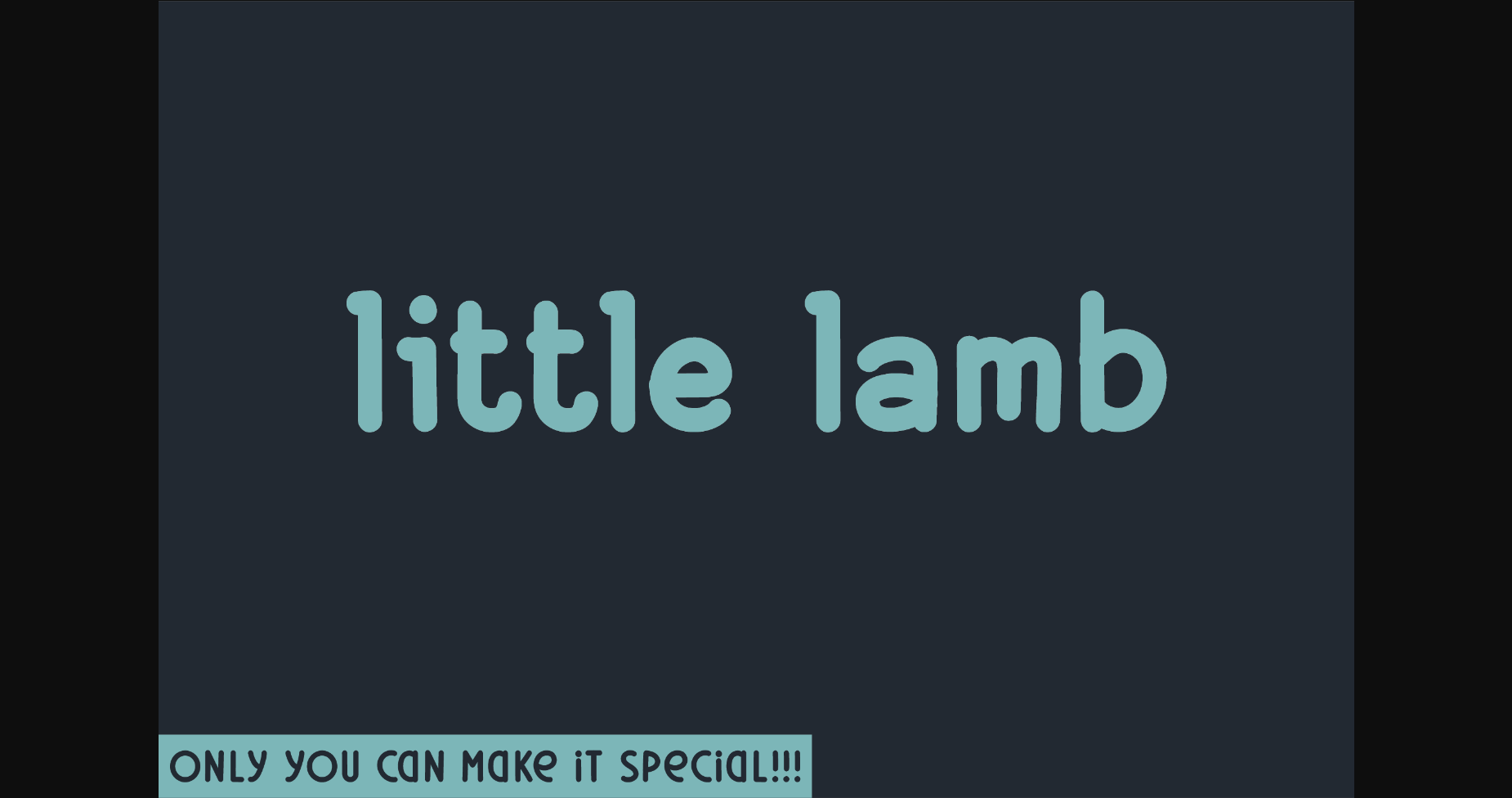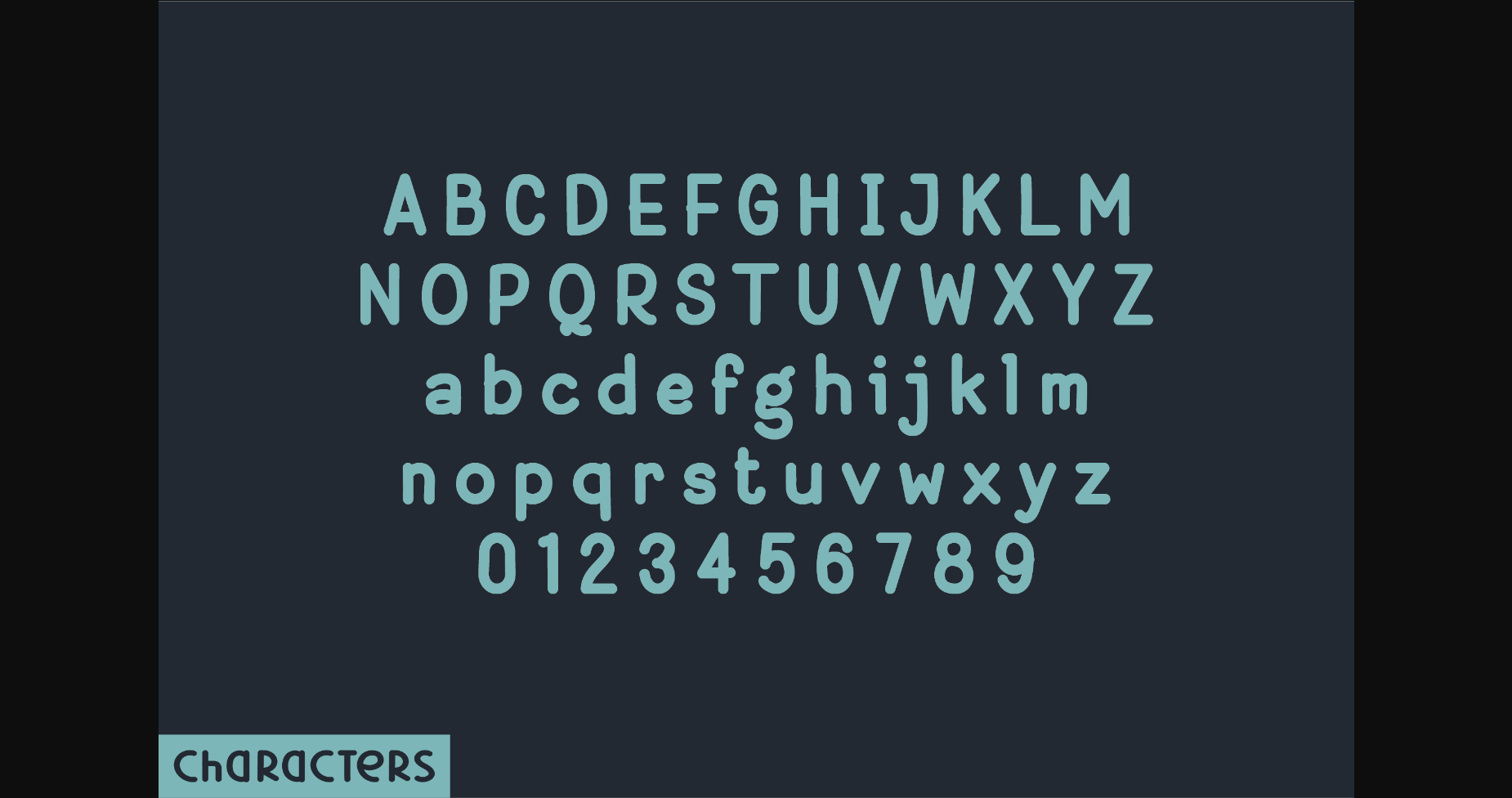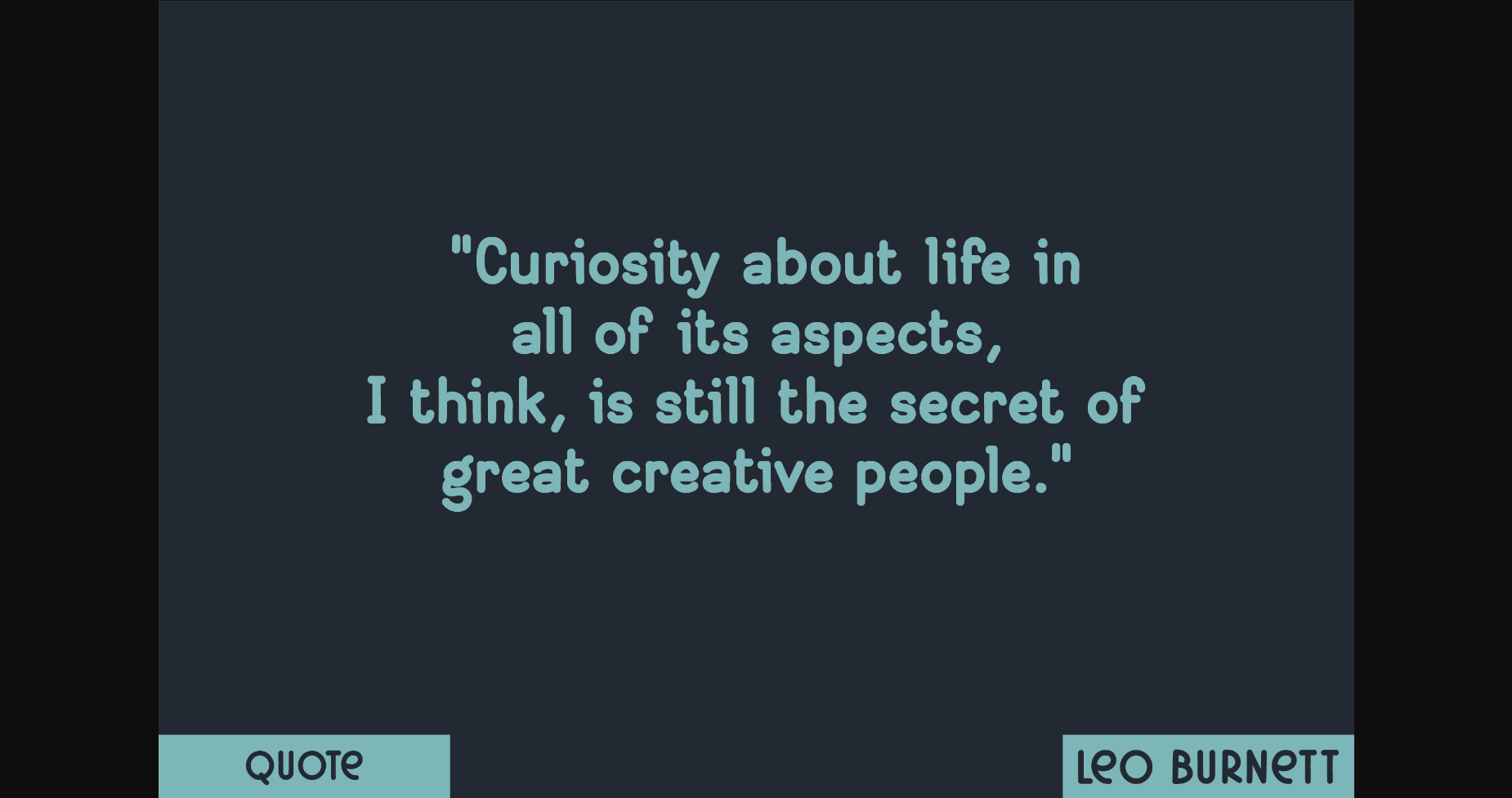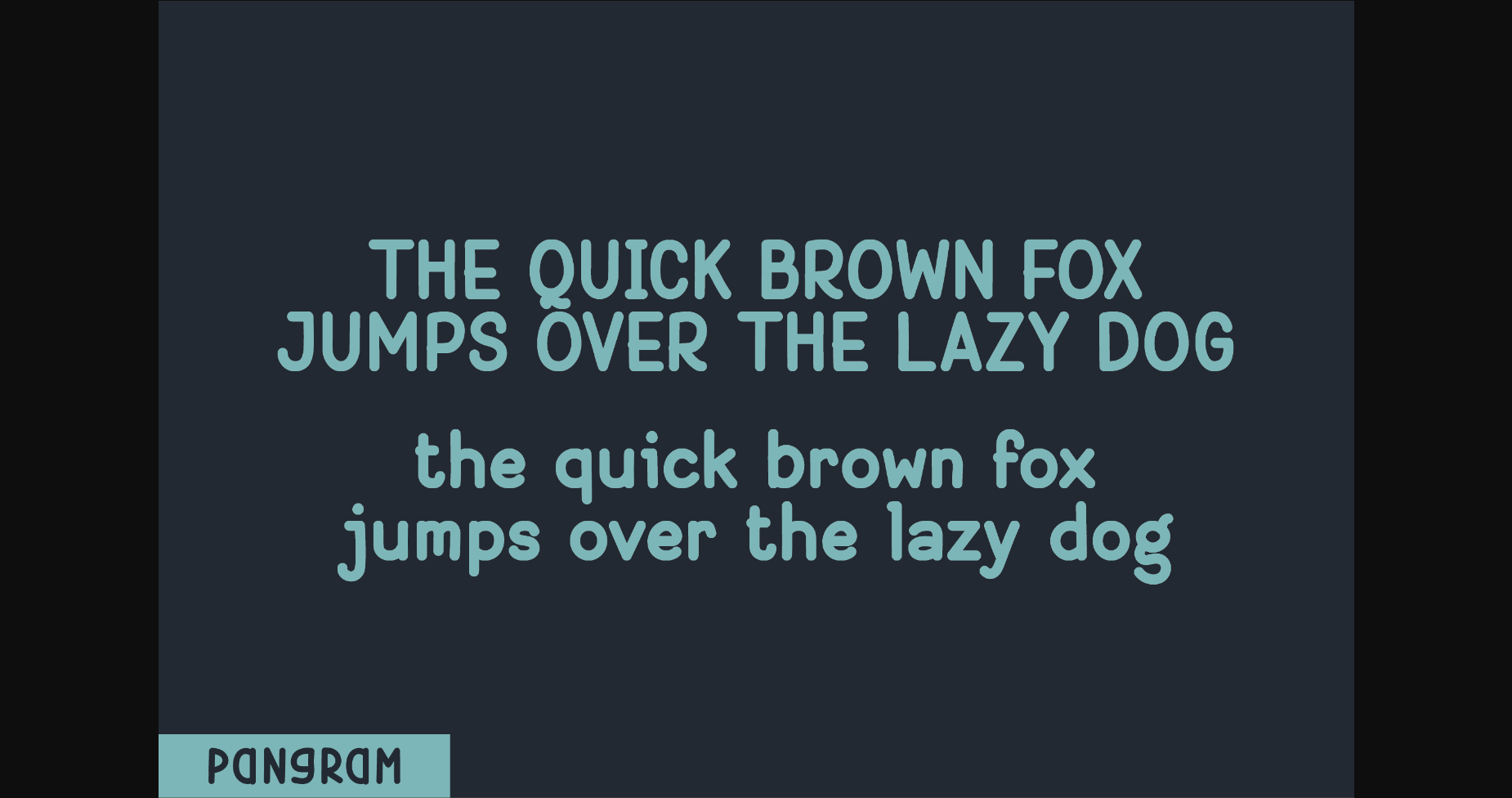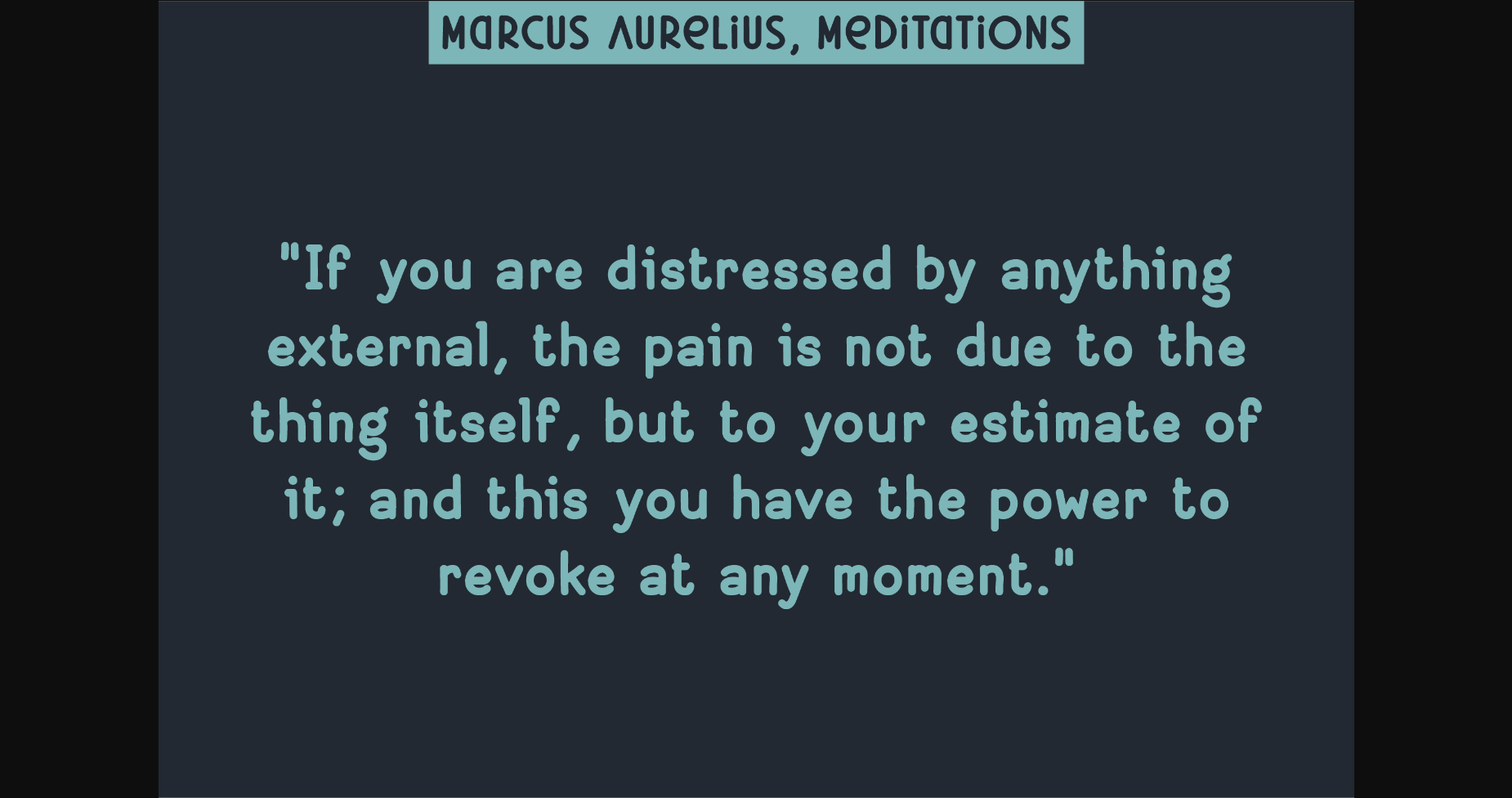
HomeSans Serif FontsLittle Lamb Font Sans Serif Fonts Little Lamb Font FacebookXPinterestWhatsApp 1 of 7 ... Little Lamb Font Poster 2... Little Lamb Font Poster 3... Little Lamb Font Poster 4... Little Lamb Font Poster 5... Little Lamb Font Poster 6... Little Lamb Font Poster 7... About Little Lamb Font Little Lamb is a bold and unique sans serif font, perfect for quotes, notes, tees, logos, social media and any design that requires a classic touch. DOWNLOAD NOW People also explored Butterfly Effect Font Dream Road Font Rafailla Script Font Moonlight Font Love Family Font Happy Baby Font Winter Melon Font Bokeseni Black Expanded Italic Font Ellose Font 380 0 TagsLittle Lamb Font Previous articleCotton Candy FontNext articleChickadee Font LEAVE A REPLY Cancel reply Comment: Please enter your comment! Name:* Please enter your name here Email:* You have entered an incorrect email address! Please enter your email address here Website: Save my name, email, and website in this browser for the next time I comment. Personal Use Free Broodfath Personal Use Free Read more about this font Panaroe Personal Use Free Read more about this font Veronica Personal Use Free Read more about this font Muthiara Font Personal Use Free Read more about this font BLOG Elegant Wedding Invitation Fonts – Handwritten & Script Fonts Elegant Wedding Invitation Fonts Your wedding day is one of the most important moments of your life, and every detail matters—including your invitation design. Our... How to Install and Use Fonts on Windows, macOS, and Web Projects The 10 Best Handwriting Fonts to Add Personality to Your Designs Best Fonts for T-Shirt Design – Top 2025 Picks